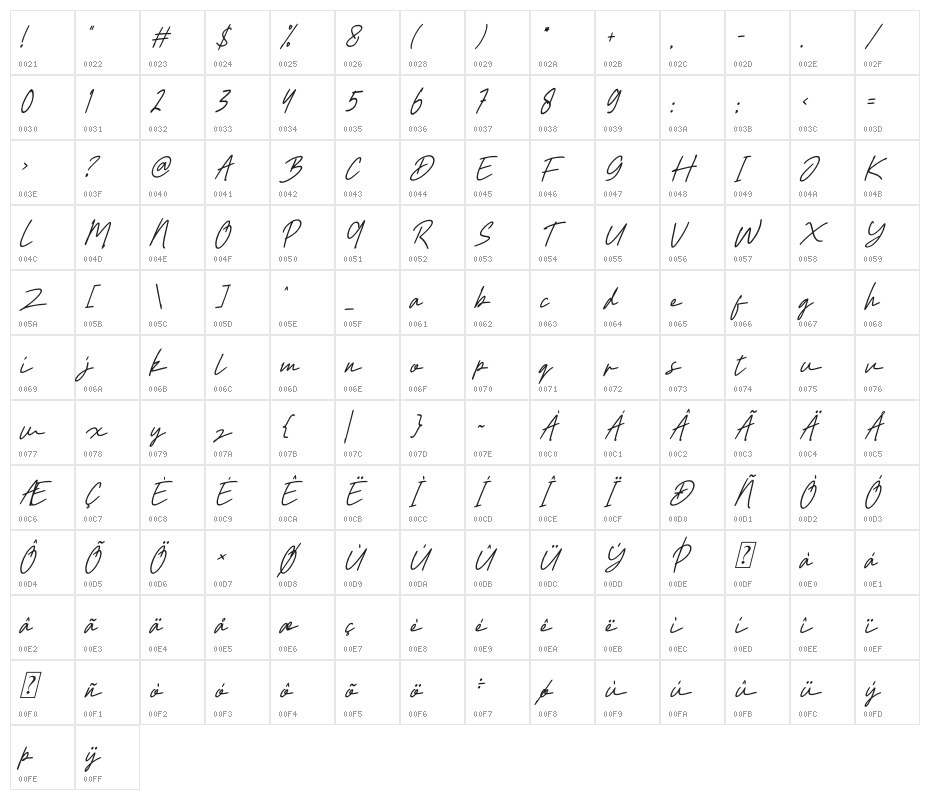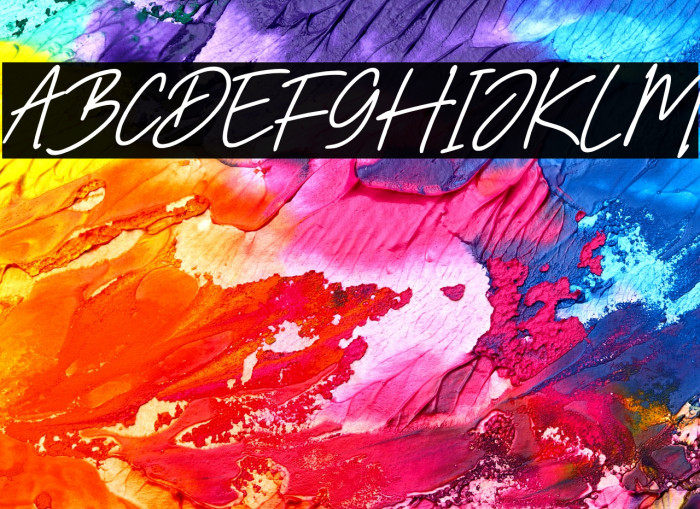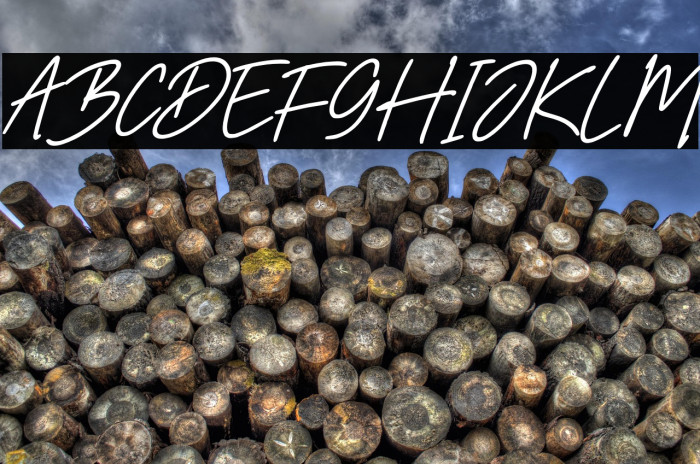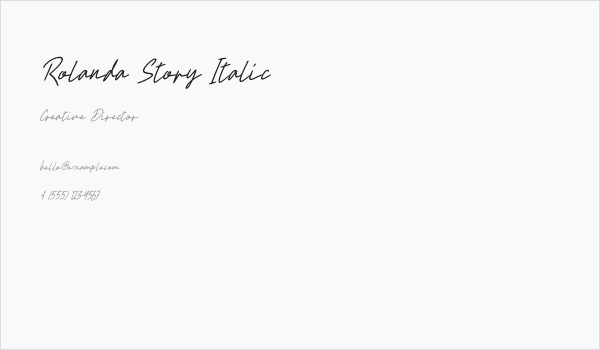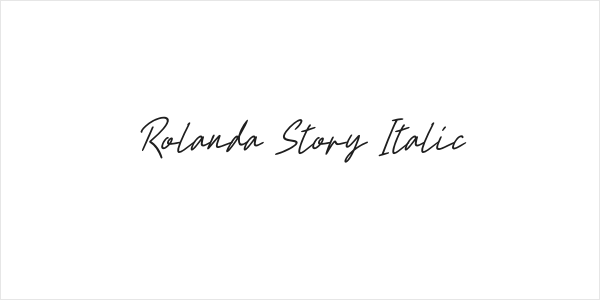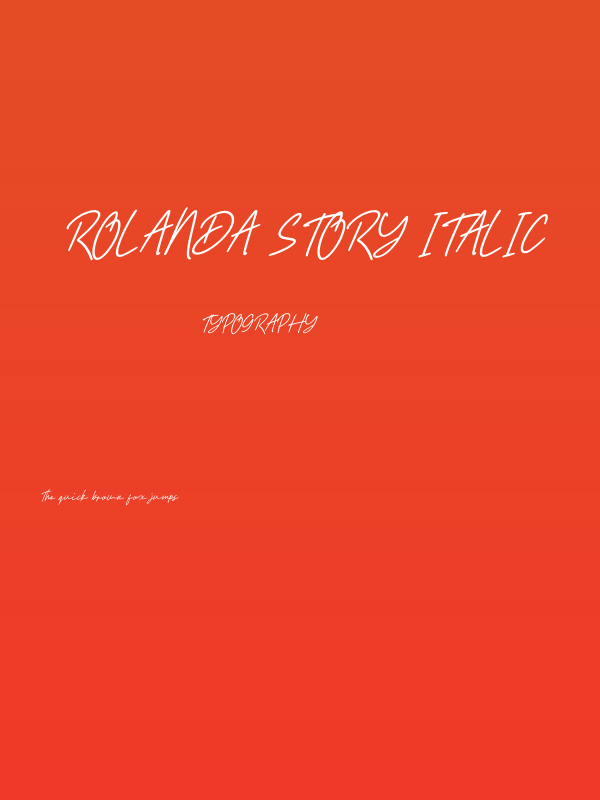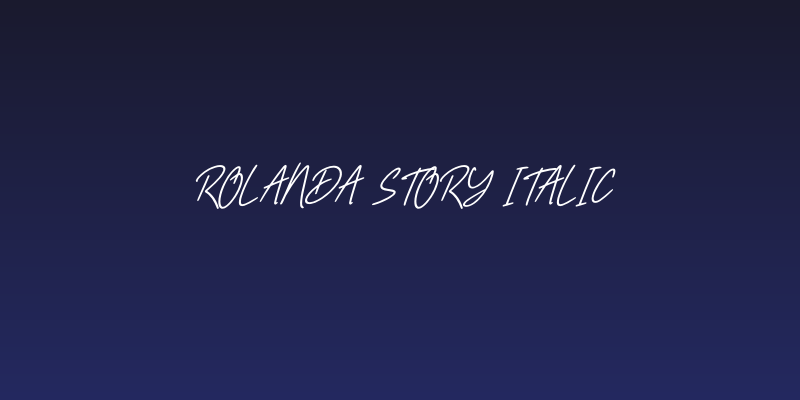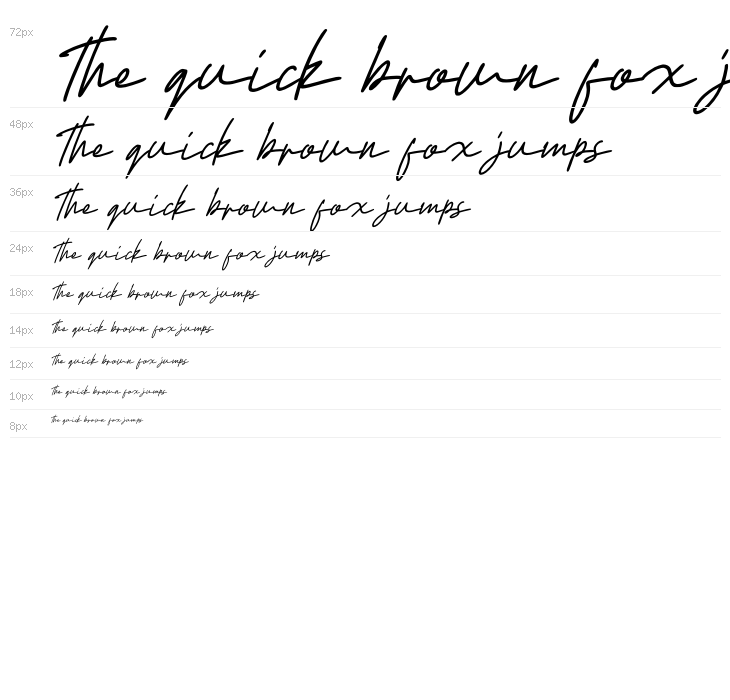
Rolanda Story Italic Font
Rolanda Story Italic Description
This font exhibits a dynamic and flowing script style, characterized by its elegant and cursive letterforms. The strokes are smooth and connected, giving it a handwritten appearance that is both stylish and personal. The uppercase letters are bold and slightly slanted, while the lowercase letters maintain a consistent flow with a slight inclination. Numbers and special characters follow the same fluid design, ensuring uniformity across all glyphs. This font's overall aesthetic is sophisticated and artistic, making it suitable for creative and expressive projects.
| Proposed Projects | Ideal for wedding invitations, greeting cards, personal branding, and artistic projects. |